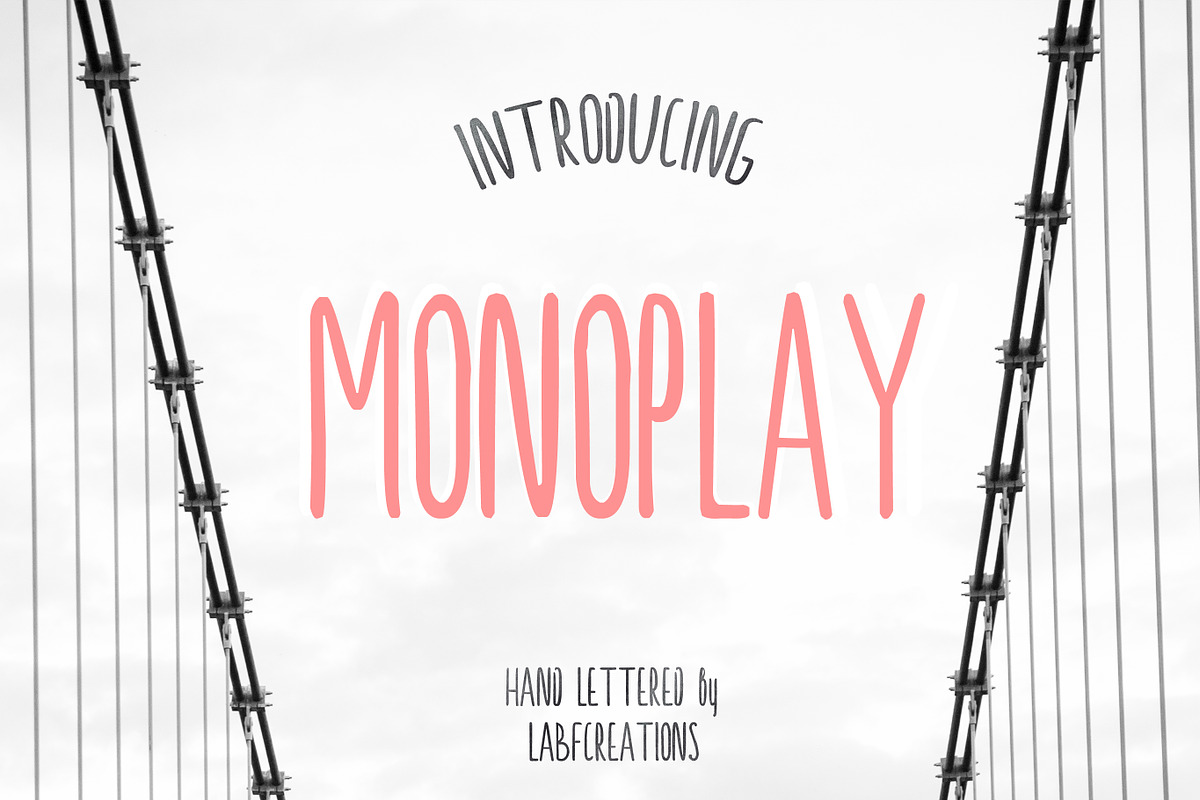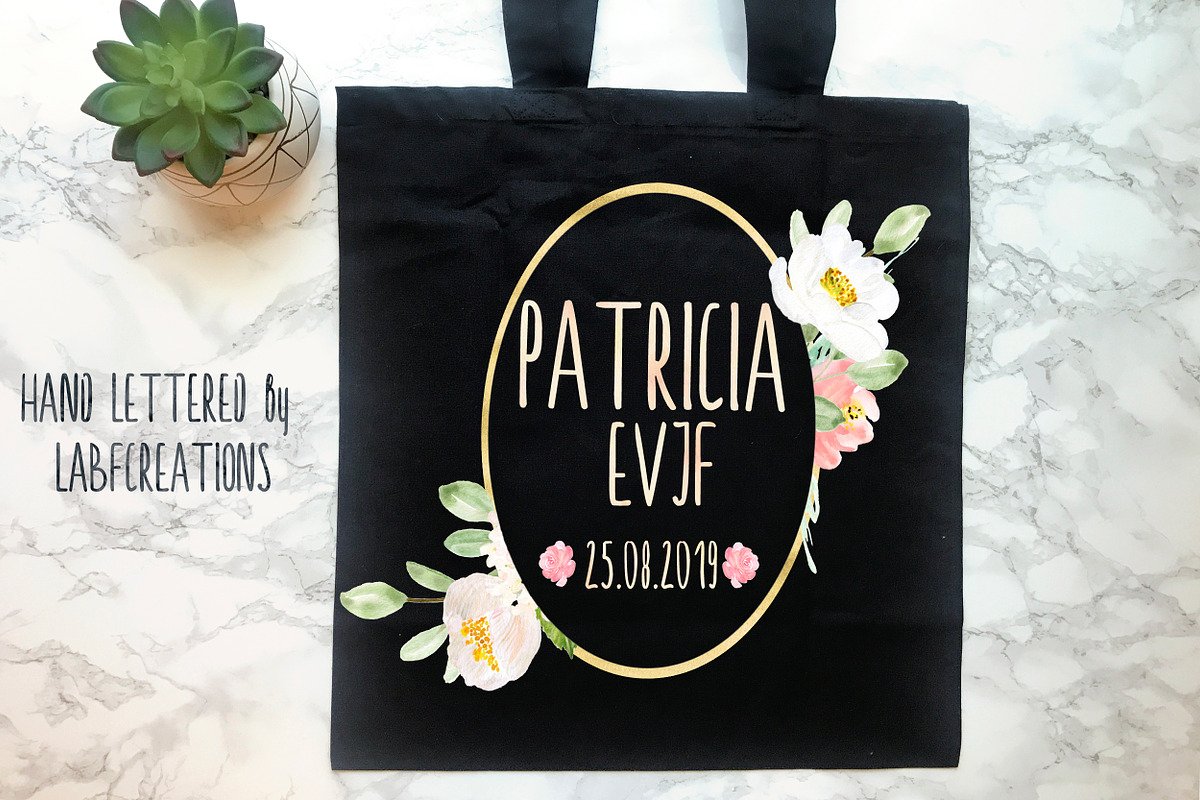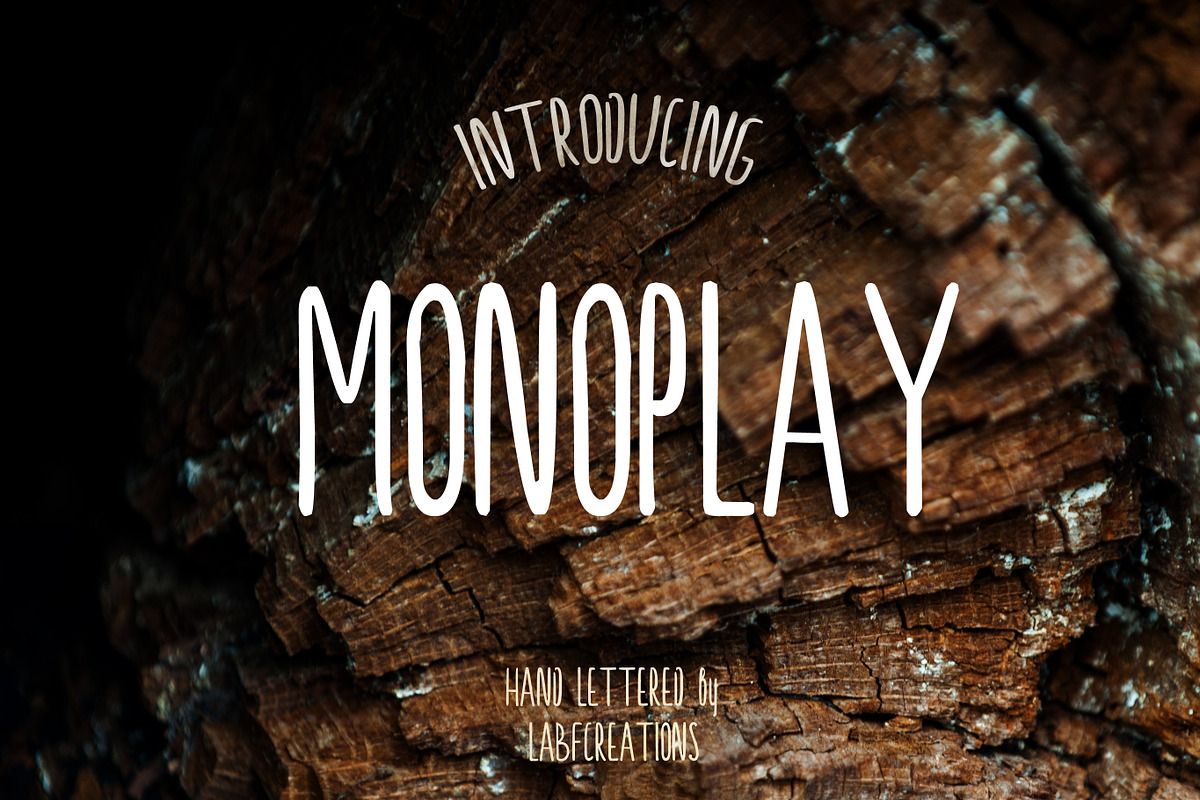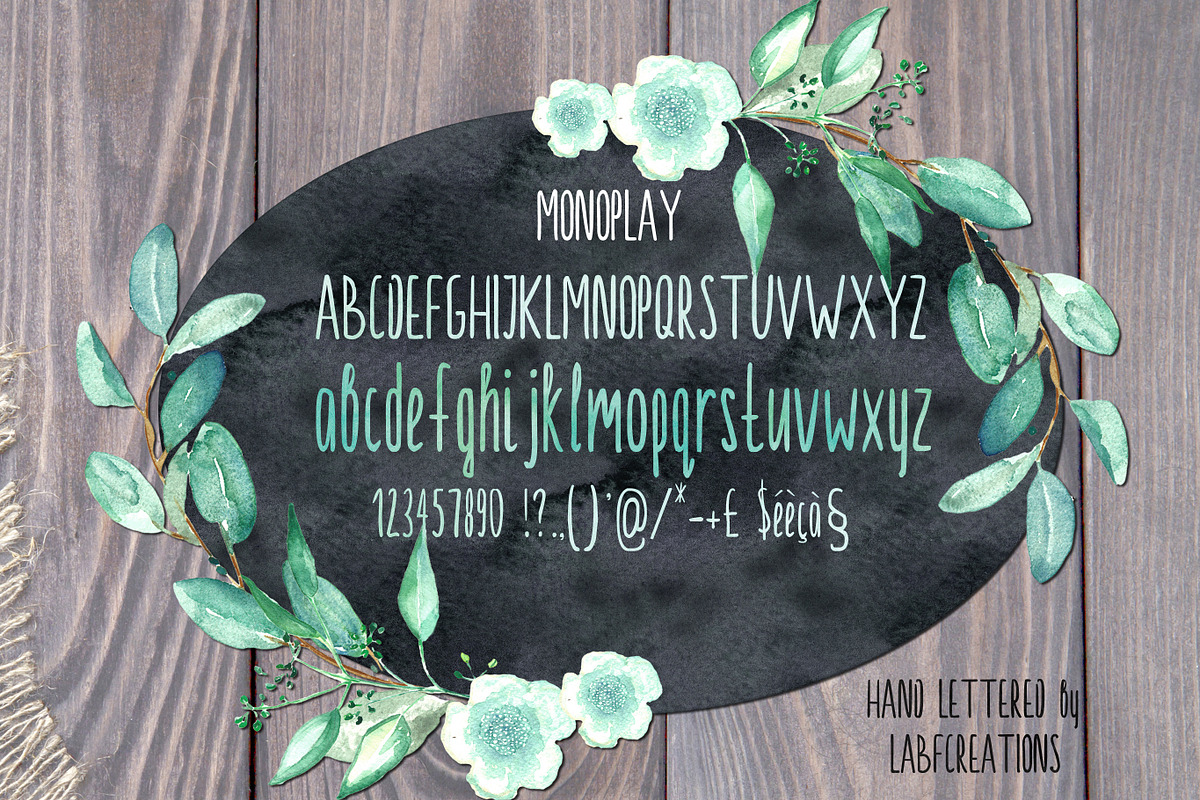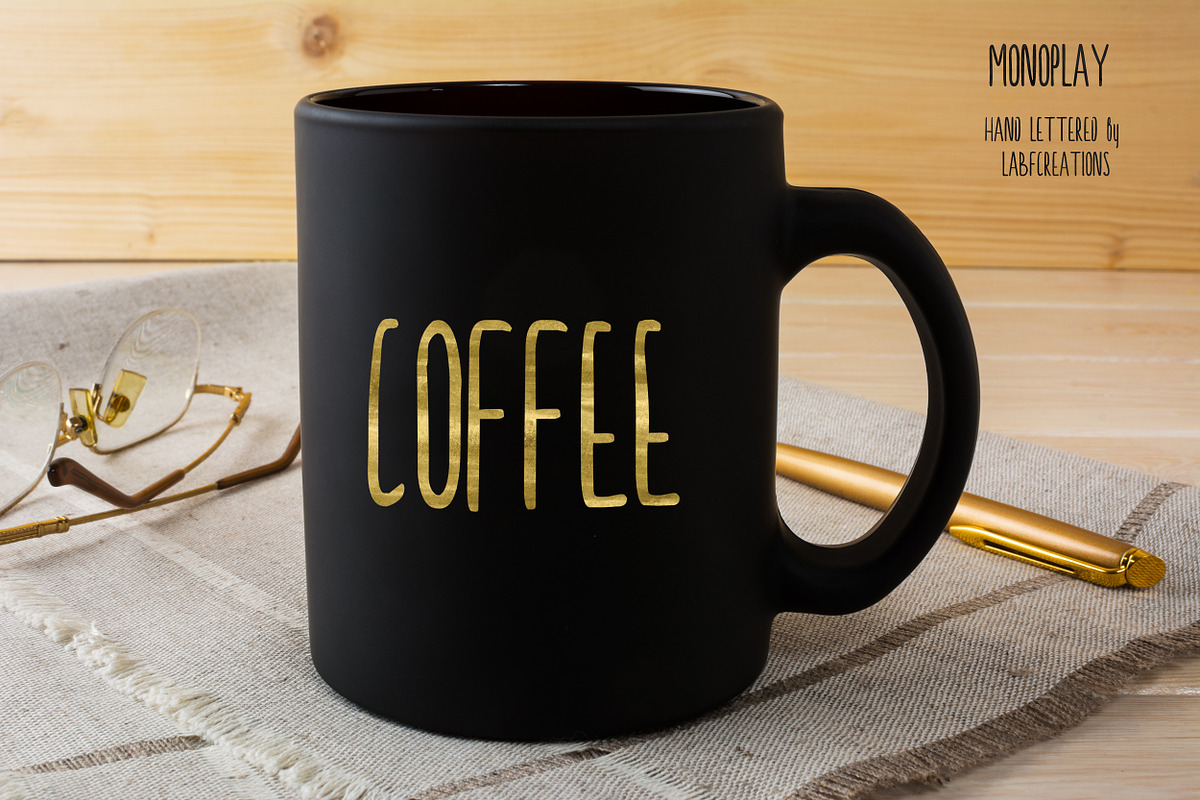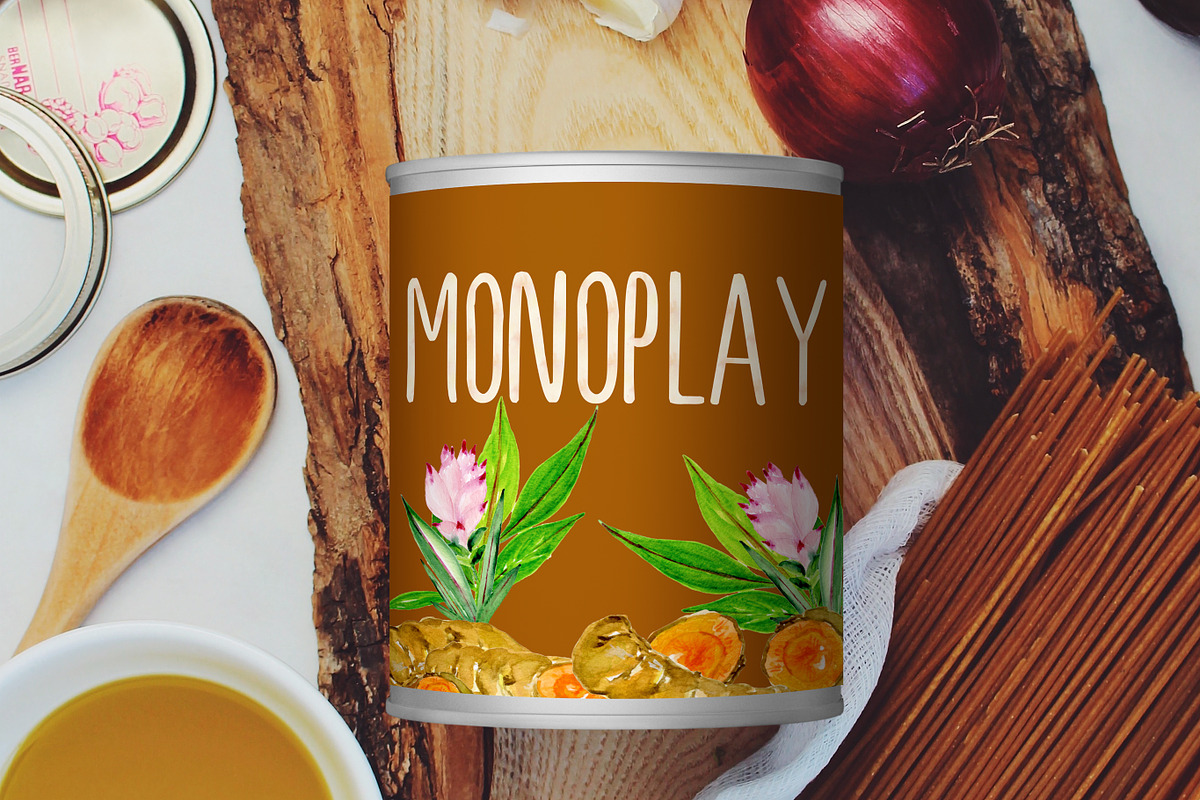
Monoplay. Sans Serif font
Monoplay Handwritten typeface
The handwritten font Monoplay . This is generic, readable handwritten font, will works well in every kind of design.
It looks fantastic for branding, logos, and websites as well!
Why Monoplay. Sans Serif font is worth a look
Monoplay. Sans Serif font by LABFcreations fits naturally into Branding, posters, packaging, typography.